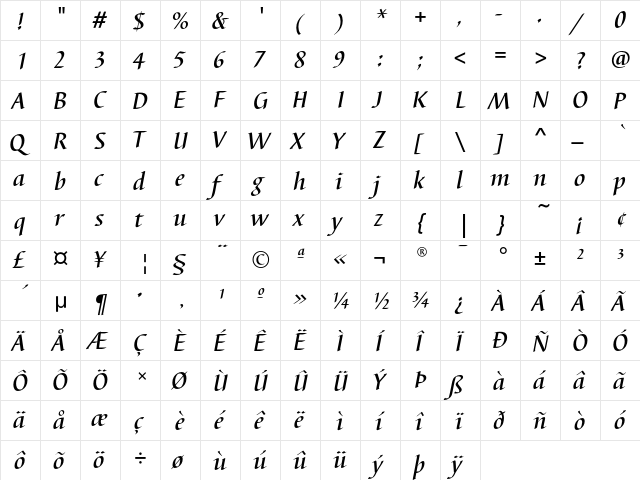
BarbedorEF MediumItalic Font Preview
BarbedorEF MediumItalic
Design Context for BarbedorEF Typeface
BarbedorEF offers clean, dependable letterforms without strong stylistic allegiance, making it a practical choice for designers who need flexibility. The dynamic lean of this cut emphasises speed and emphasis in any layout.
Pro Tip: Try BarbedorEF for annotation and caption copy alongside an upright companion — the contrast in angle creates a dynamic but ordered typographic system.